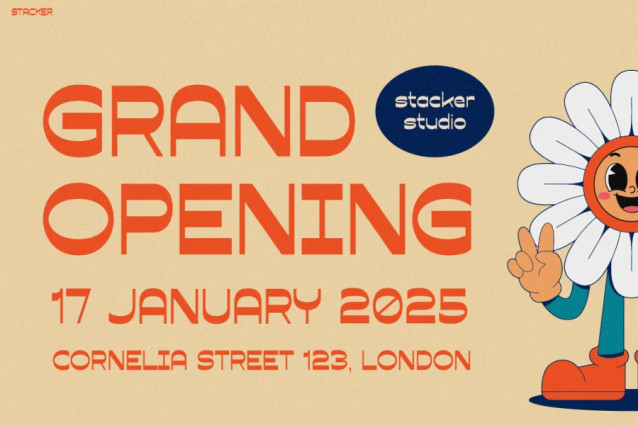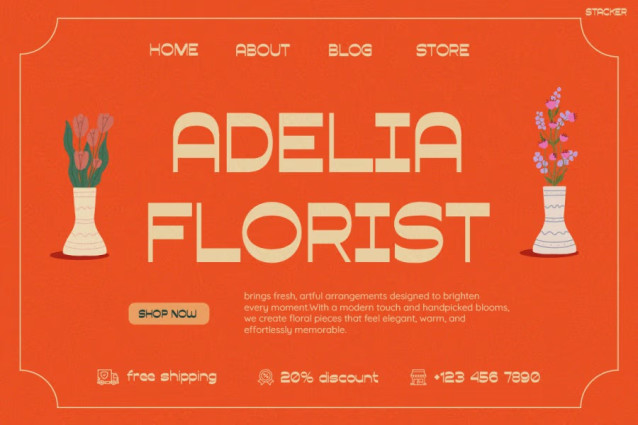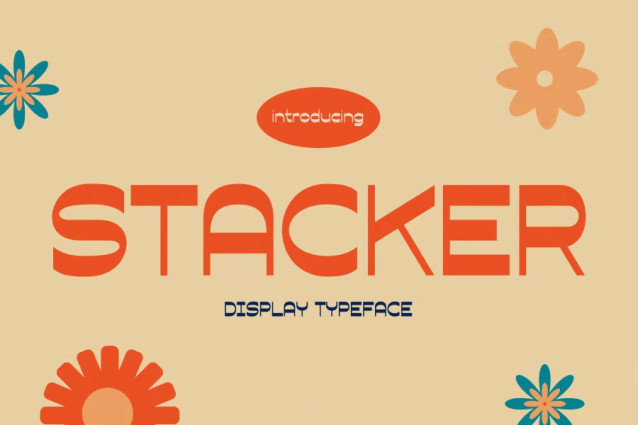
Stacker Font
Stacker Font brings a fresh and playful look to every design. It mixes rounded curves, geometric balance, and a fun retro touch. This combination gives your text a strong visual presence while keeping the style warm and approachable. The stacked proportions and smooth shapes make each word stand out, even in simple layouts. Because of that, your designs feel lively and expressive without extra effort.
The font has clean lines and a soft rhythm that improves readability. Each letter feels intentional and easy to use across different themes. Its unique character style also adds charm to quotes, posters, Instagram promotions, and product highlights. This is why STACKER feels both creative and practical. It elevates your visuals with modern energy while keeping a friendly and human tone.
When you look at the sample images, you can see how well the font handles color, spacing, and layout. Every phrase gains impact. The aesthetic feels consistent and fun, which makes it ideal for designers who want strong visuals that are simple to build. STACKER helps your content attract attention faster and keeps viewers engaged longer.
Who This Font Is Perfect For
Instagram Font STACKER suits creators, branding designers, and small business owners who need a bold and easy-to-use typeface. Content creators on Instagram will enjoy its playful style for quote posts, carousels, reels covers, and story slides. It also works well for online shops, lifestyle brands, children’s products, and fashion campaigns.
If you often design sale banners, product previews, or event announcements, this font will help your message appear stronger and more inviting. Influencers who need a clean but expressive style can also use STACKER for thumbnails and feed layouts. Even beginners can use it right away because the letters naturally create balanced compositions. The font fits marketing teams, social media managers, boutique brands, and creators who want a design-forward look with minimal effort.
Make Your Designs Stand Out Easily
With Instagram Font STACKER, every design becomes more charming and memorable. It adds personality without sacrificing clarity. If you want content that feels playful, modern, and visually powerful, this font is an excellent choice. Give your brand a brighter voice and make every post shine with STACKER.